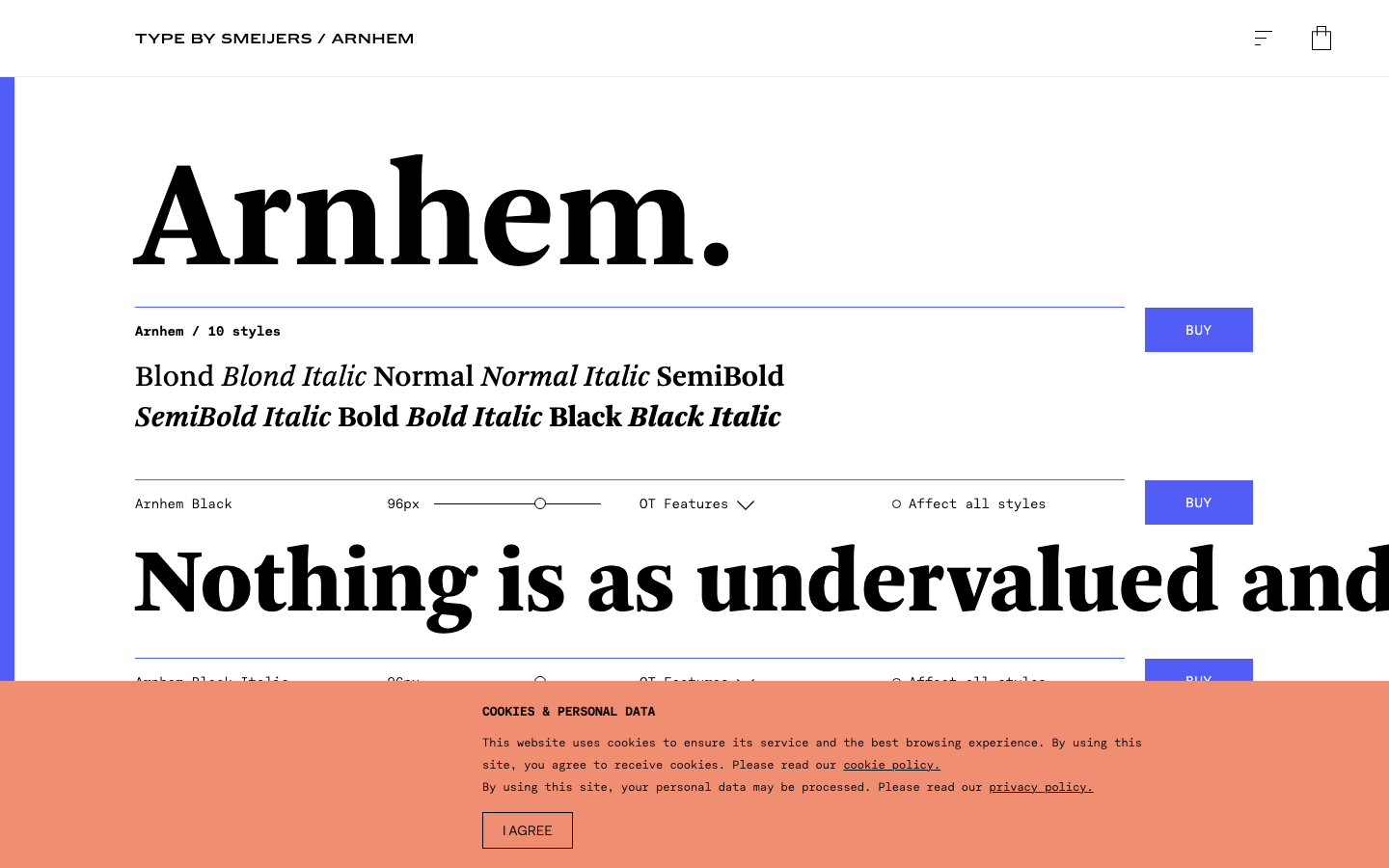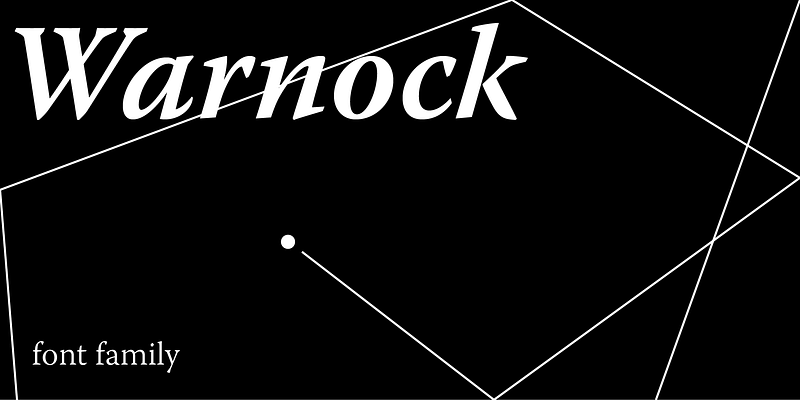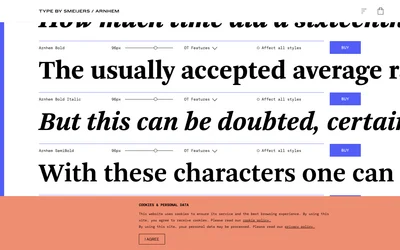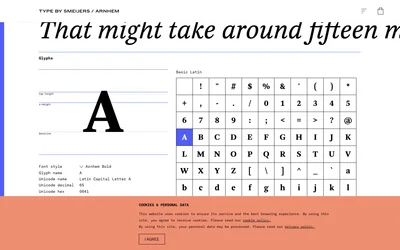
Arnhem vs Warnock Pro
Arnhem and Warnock Pro are both serif typefaces sharing a modern foundation. Where Arnhem leans editorial, bold, Warnock Pro brings old style, elegant. Compare which suits your Editorial project.
Design overlap:17%
Recommended: Arnhem
- editorial, bold design character
- Suited for Newspapers and Magazines
Consider: Warnock Pro
- old style, elegant design character
- Suited for Corporate and Print